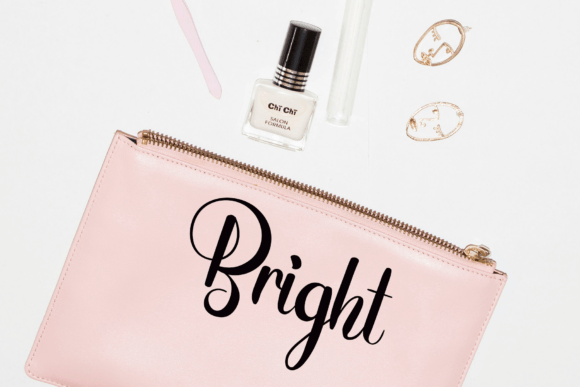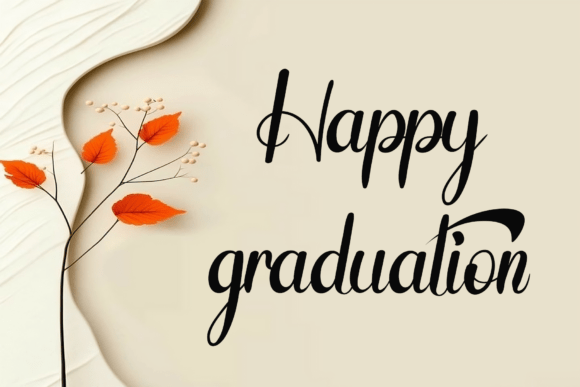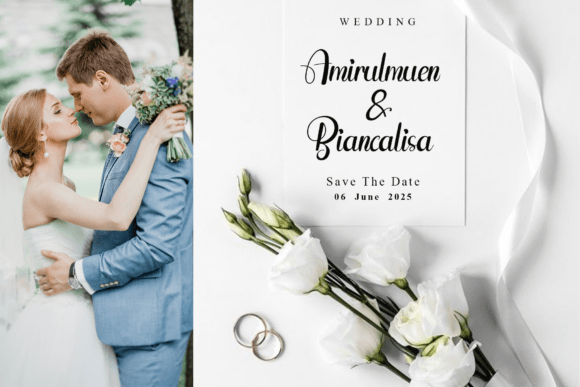
Celestial Font
Celestial is a fun and friendly handwritten font. Whether you’re using it for crafts, digital design, presentations, or making greeting cards, this font has the potential to become your favorite go-to font, no matter the occasion!